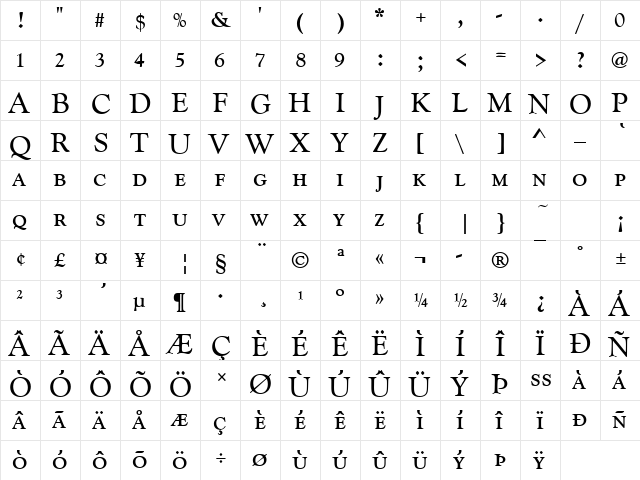
GoudyCatDCDReg Regular Font Preview
GoudyCatDCDReg Regular
Design Context for GoudyCatDCDReg Typeface
GoudyCatDCDReg is a composed and adaptable typeface that performs quietly and consistently across a wide range of design contexts.
Pro Tip: Use GoudyCatDCDReg in both headline and body roles to test its range before committing to a single application.